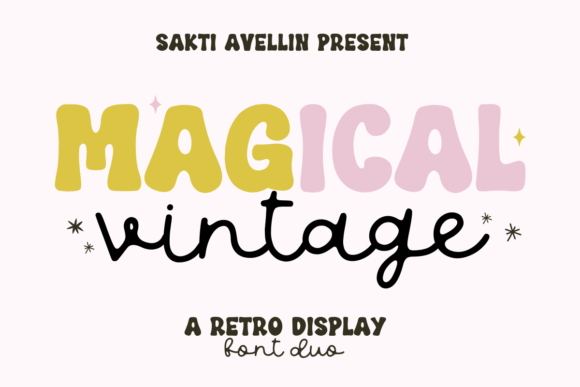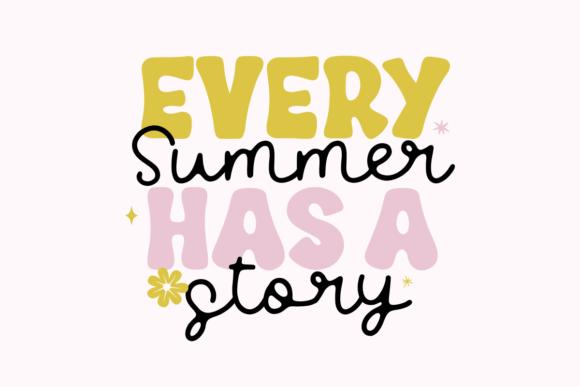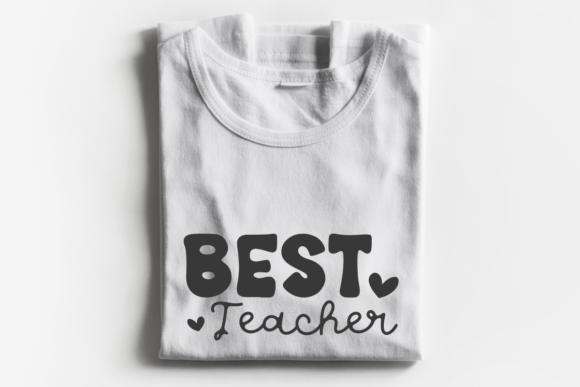
Magical Vintage Font: Retro Display & Handwritten Script Duo!
About the Magical Vintage Font
Crafted with precision, the Magical Vintage Font is ready to bring your ideas to life. Magical Vintage, a retro-inspired duo of handwritten fonts that beautifully combine display and script characters. This uniquely versatile font breathes life into crafts, elevates designs for t-shirts and hoodies, and adds a nostalgic touch to wedding and birthday invitations. Ideal for conveying personality in your quotes, or infusing whimsical character on any project, Magical Vintage is the font that truly delivers the charm of yesteryears.
Magical Vintage’s playful, slightly whimsical personality makes it perfect for headlines, short-form text on posters, and branding projects needing a retro touch. It excels in packaging design for artisanal products or vintage-inspired goods. However, its decorative nature makes it unsuitable for body text or UI elements where readability is paramount. Avoid using it for long paragraphs or complex layouts.
This font pairs well with clean sans-serifs like Montserrat or Open Sans for a balanced contrast. For a more vintage feel, consider pairing it with a serif like Playfair Display or Merriweather. A delicate script font could add a layer of sophistication, depending on the project’s specific needs.
Ultimately, Magical Vintage is best suited for designs aiming for a nostalgic, handcrafted aesthetic. Its charm lies in its ability to capture attention and evoke a sense of warmth and personality, but careful consideration of its limitations ensures optimal design impact.
Magical Vintage Font Usage Examples
Magical Vintage Font Example